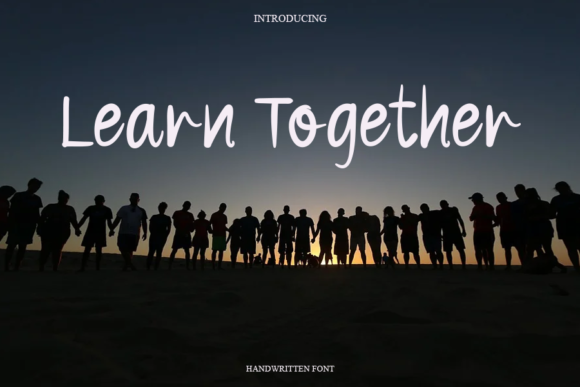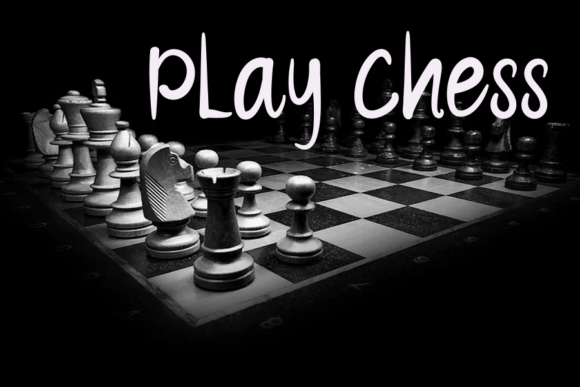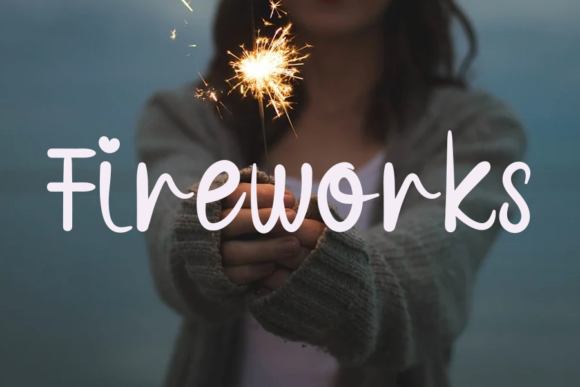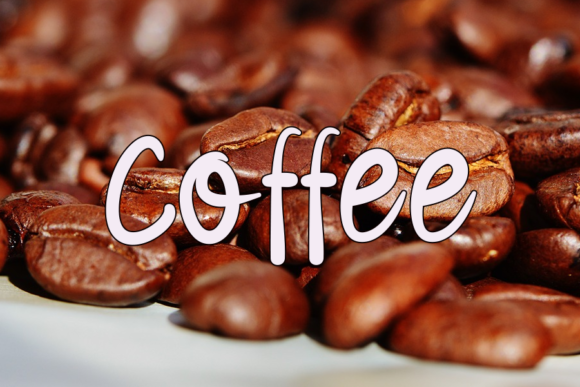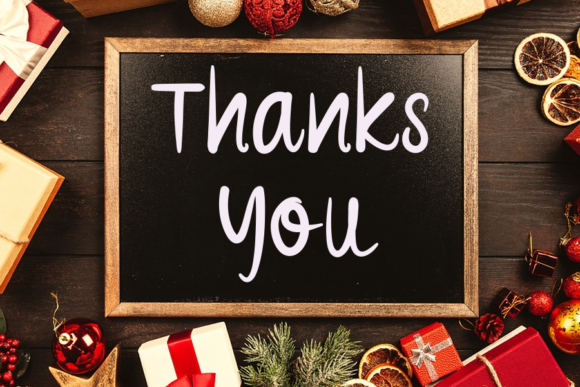
Learn Together Font
About Learn Together Font
Learn Together is an elegant script font with a contemporary atmosphere and impeccable form, inspired by timeless classic calligraphy. Not too thin and not too thick, balanced and varied, this font was designed to enhance the beauty of your projects.